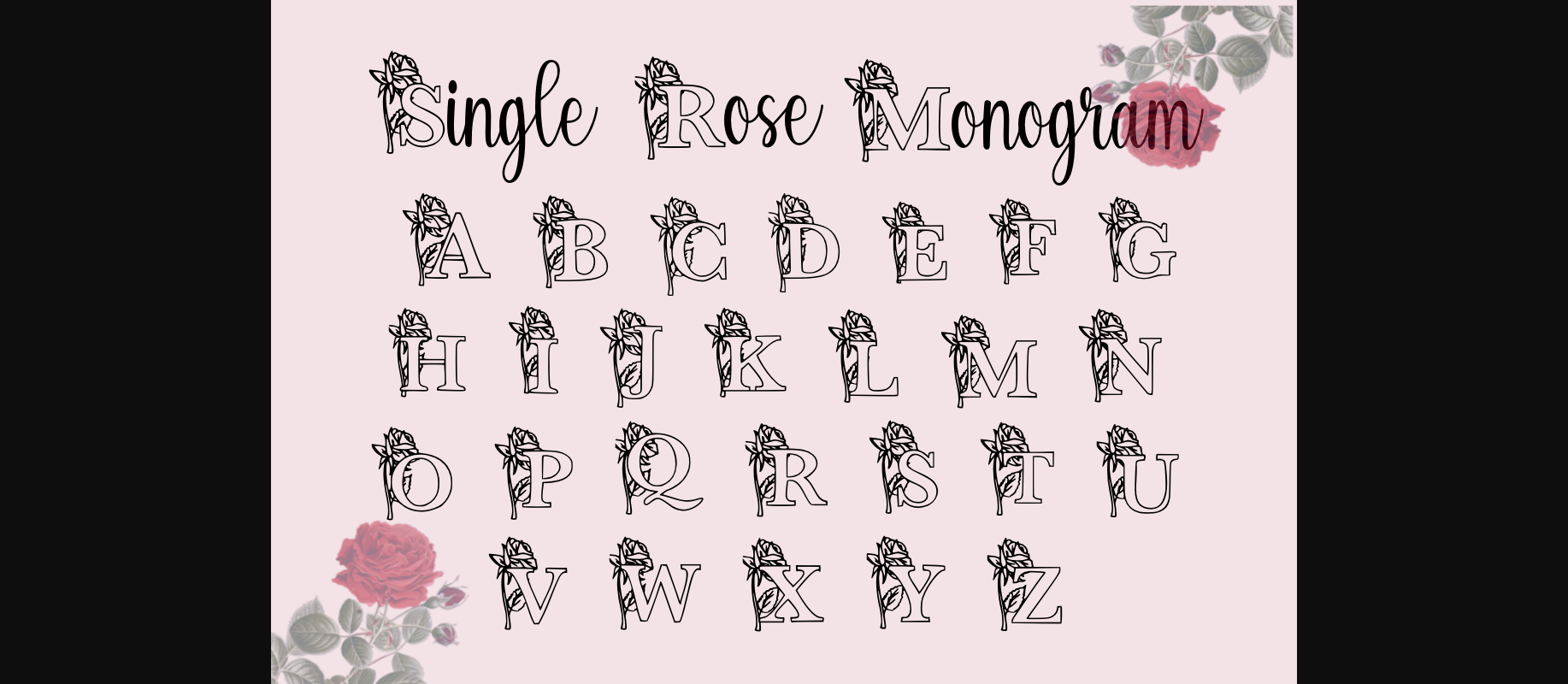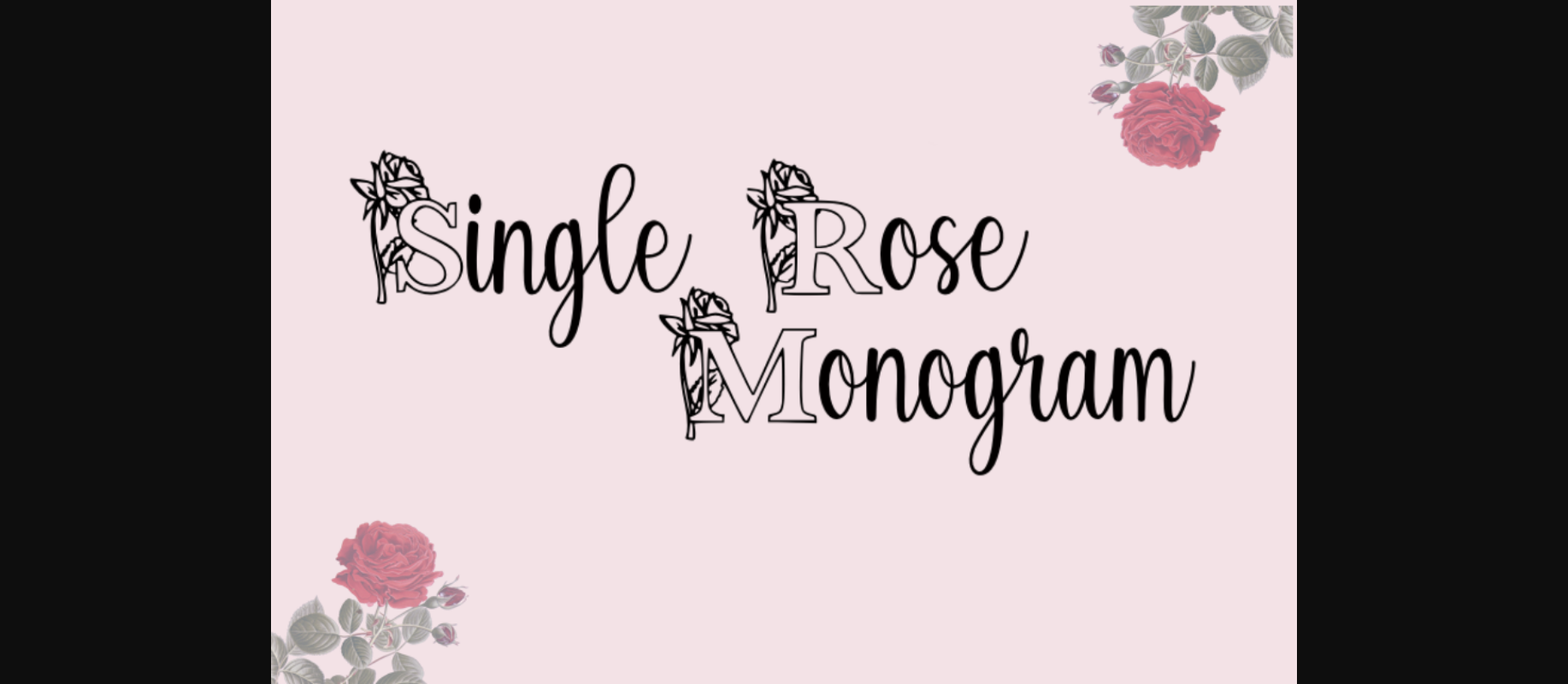
Single Rose Monogram Font
About Single Rose Monogram Font
Single Rose Monogram is a lovely and unique decorative font with a floral theme. Use it for any design project that requires a charming theme.